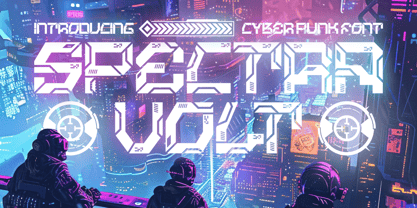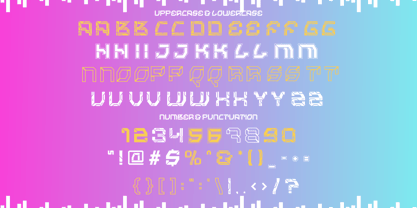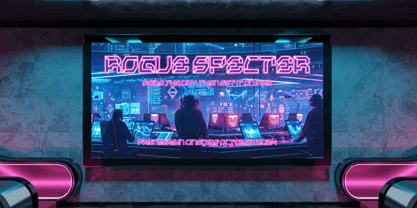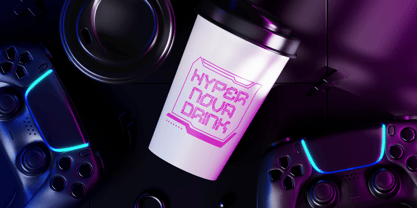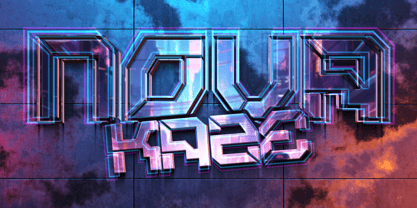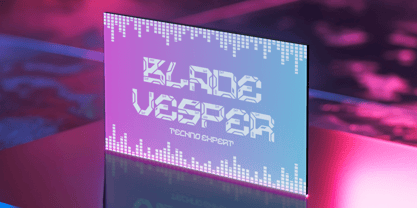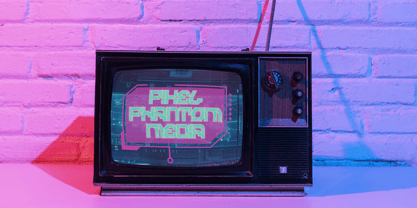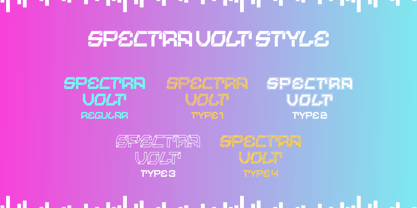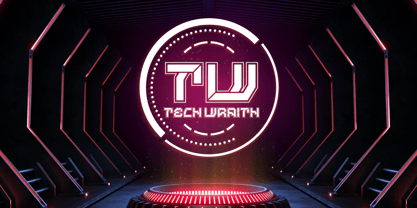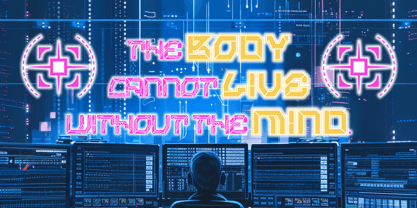
Spectra Volt
by Putracetol
The Spectra Volt Font Family was designed by Putra Novembria Candra Kusuma and published by Putracetol. Spectra Volt contains 5 styles and family package options. More about this family
Presenting Spectra Volt, a powerful cyberpunk font that captures the essence of futuristic cityscapes and neon-lit nights. The font’s sharp, angular edges and segmented design mimic digital circuitry, enhancing its tech-inspired look. With an electric blue hue against a neon-drenched cityscape, Spectra Volt’s design embodies a high-energy sci-fi aesthetic that feels straight out of a futuristic metropolis. The background scene, featuring cyber-soldiers overlooking a city of holographic lights and skyscrapers, adds an extra dimension of immersion, making this font ideal for projects that demand a bold, tech-forward vibe. Spectra Volt is perfect for game titles, tech branding, or sci-fi themed projects, offering an eye-catching, vibrant appeal that resonates with the cyberpunk style.
Spectra Volt is versatile and adaptable for various design needs, from posters, branding, and packaging to logos, stickers, and magazine covers. This font is designed for those who want to make a futuristic statement in their work. Perfect for creating attention-grabbing graphics, Spectra Volt elevates your design with a unique digital feel. Whether you're crafting game interfaces, tech event posters, or cyberpunk-themed merchandise, this font will infuse a sense of modern sci-fi sophistication and energy into your project.
Designers: Putra Novembria Candra Kusuma
Foundry: Putracetol